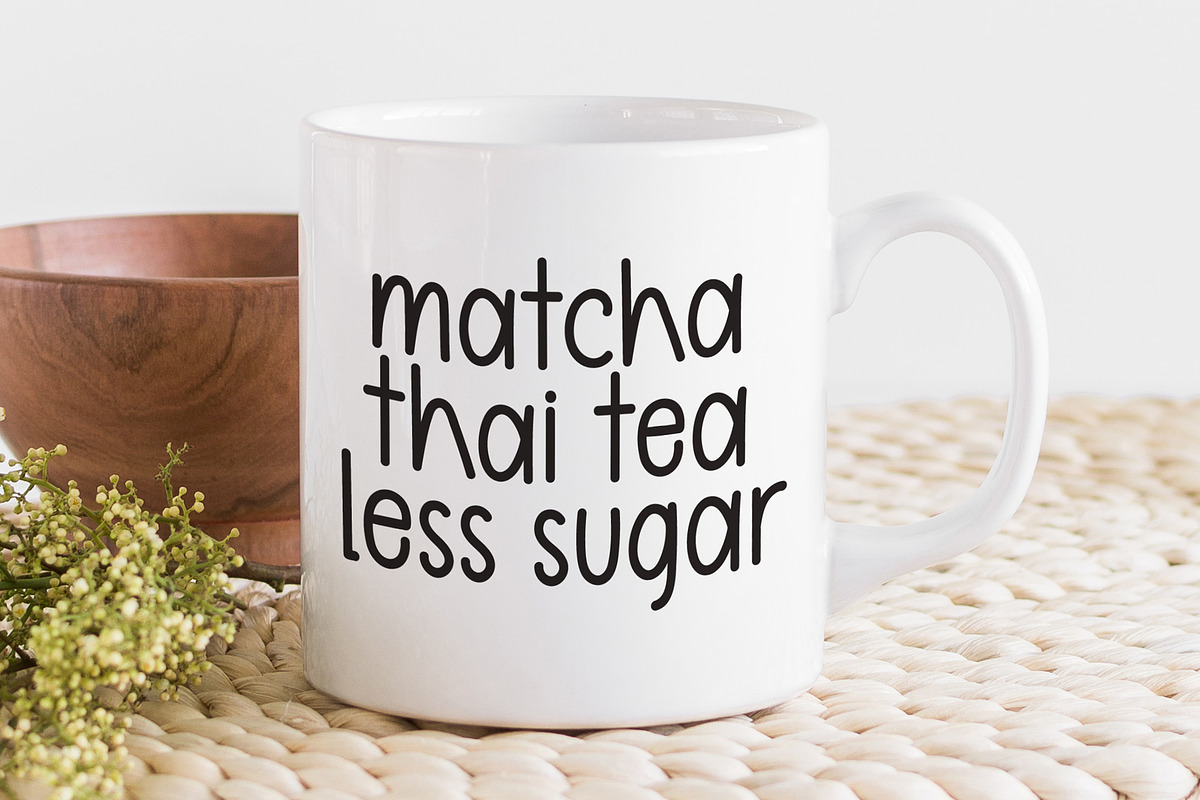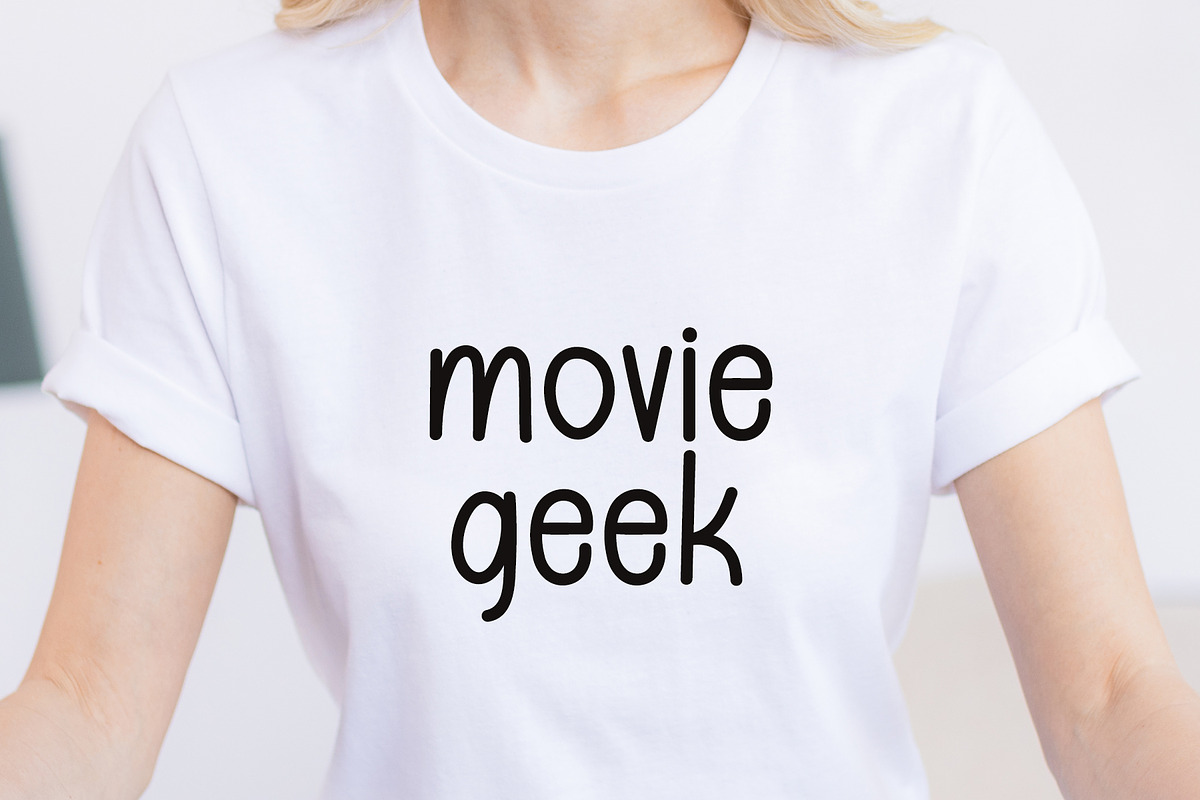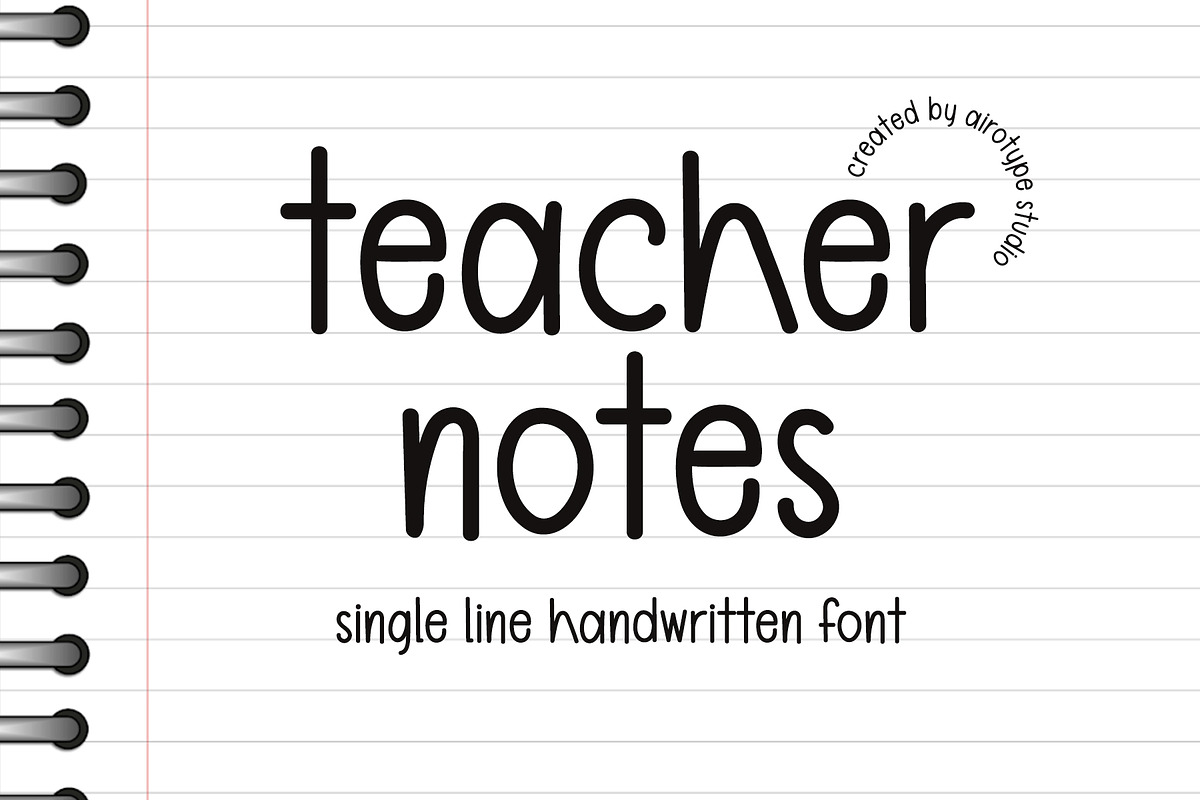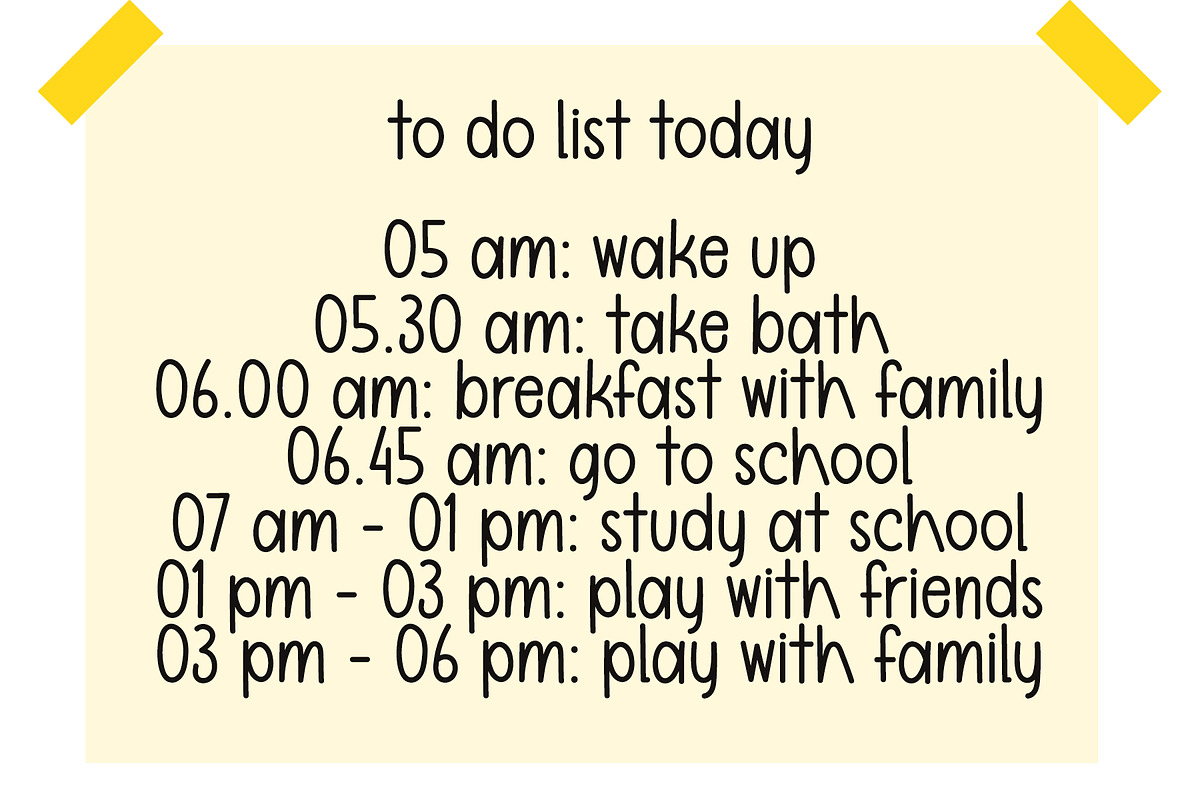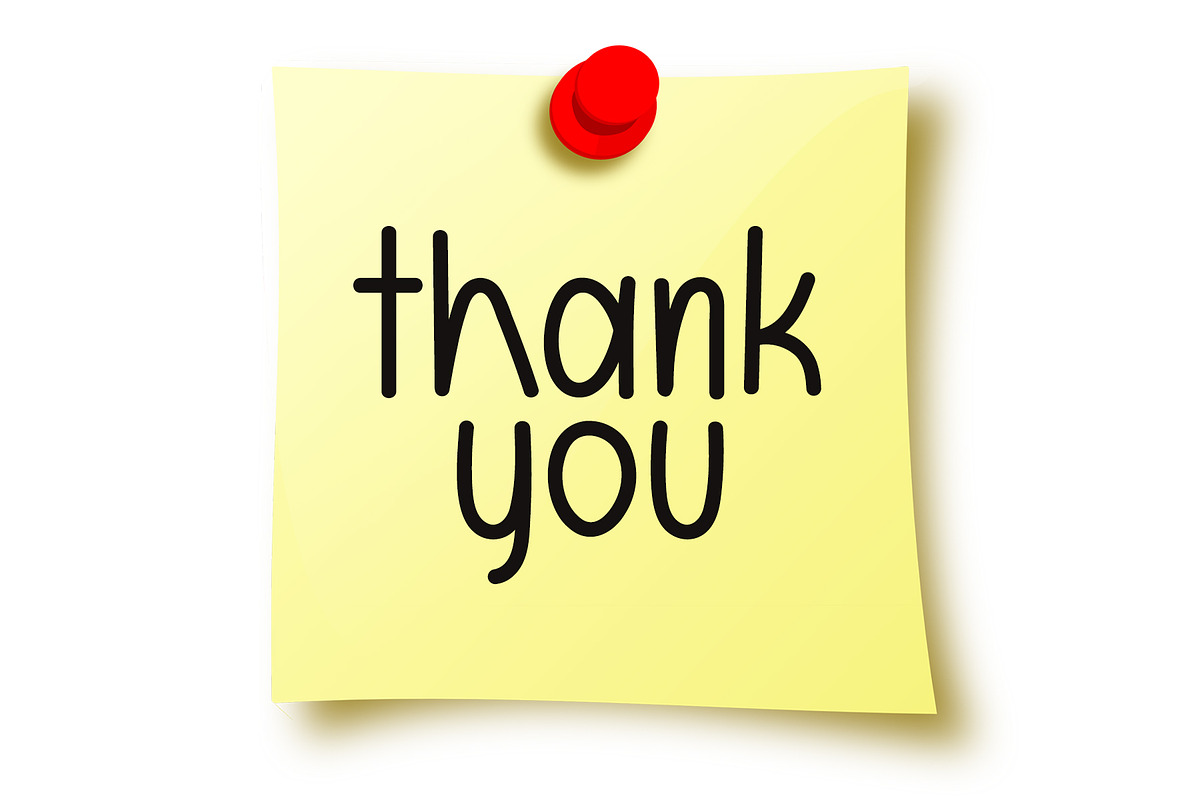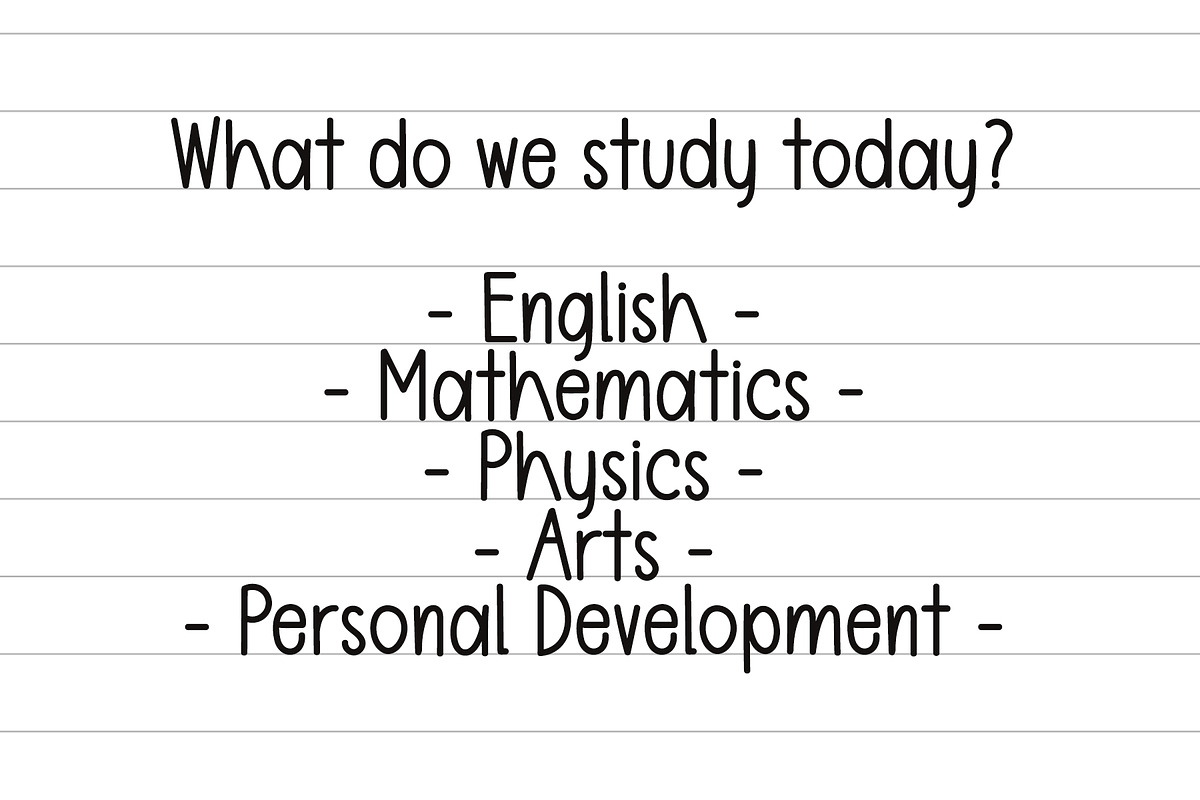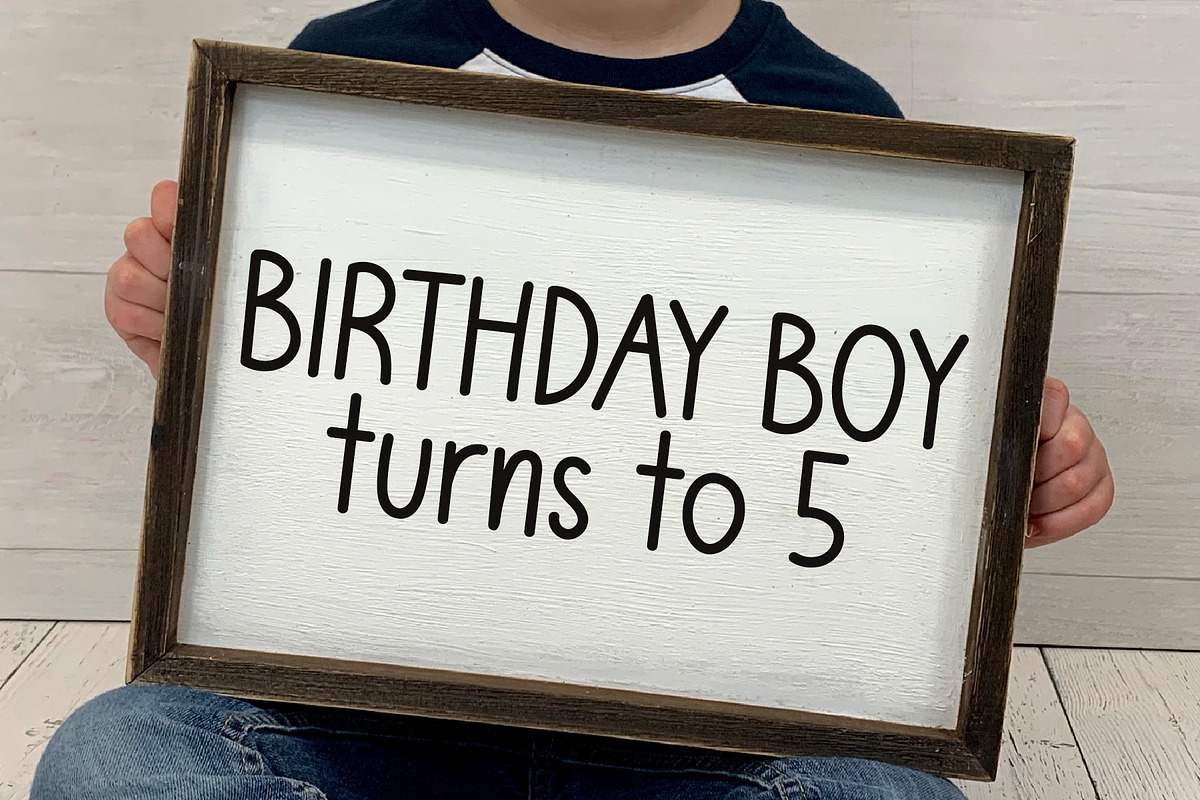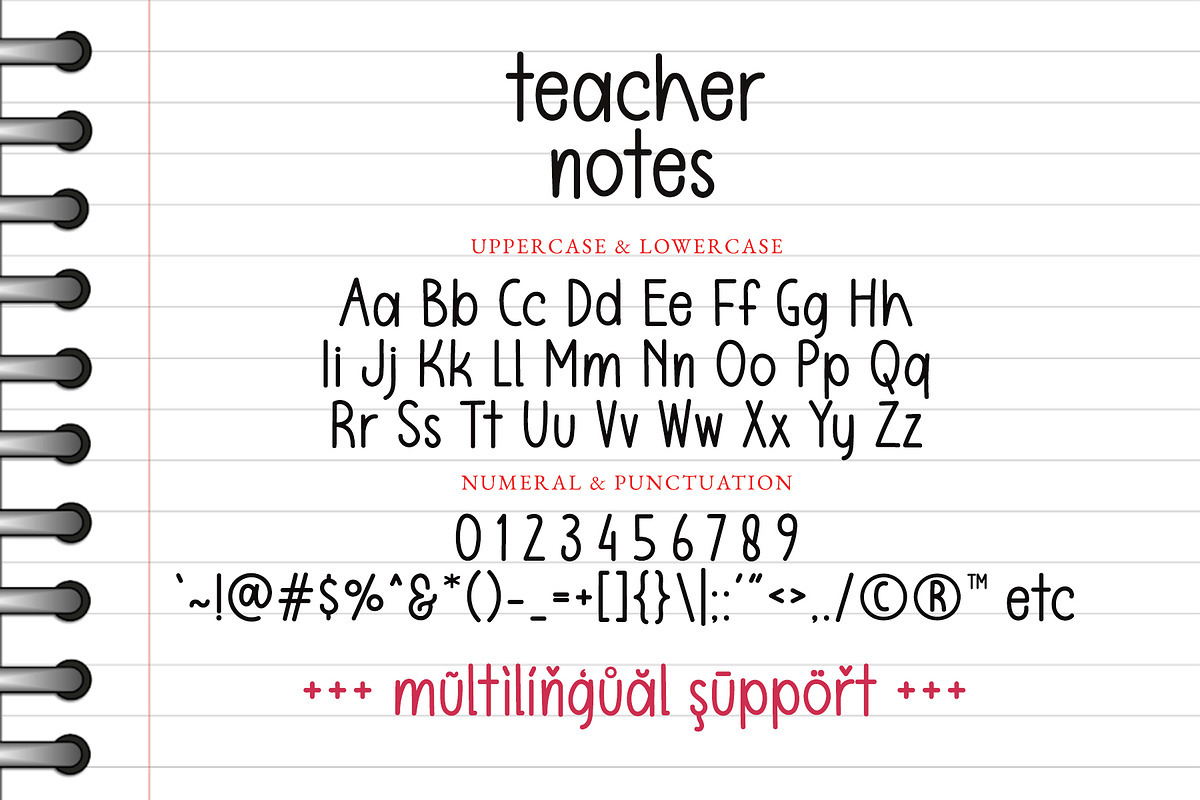
Teacher Notes - Handwritten Font
Teacher notes is simple handwritten font with monoline. It is casual, cute, and fun.
This font is so lovely for design that needs cute and playful touch, such as back to school design, birthday invitation, summer design, t-shirt design, crafting, sticker, sublimation, and many more.
- Most Multilingual Accent